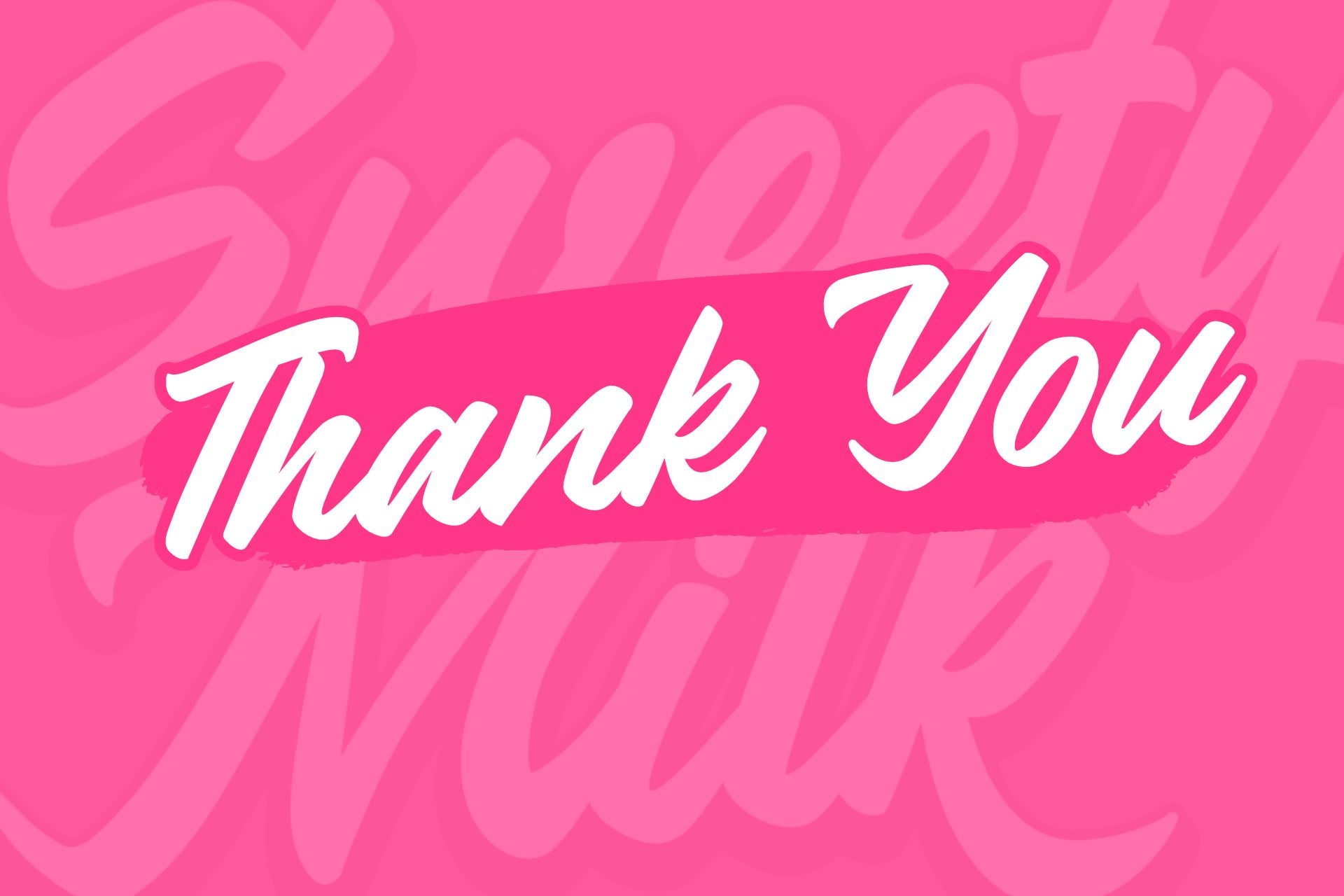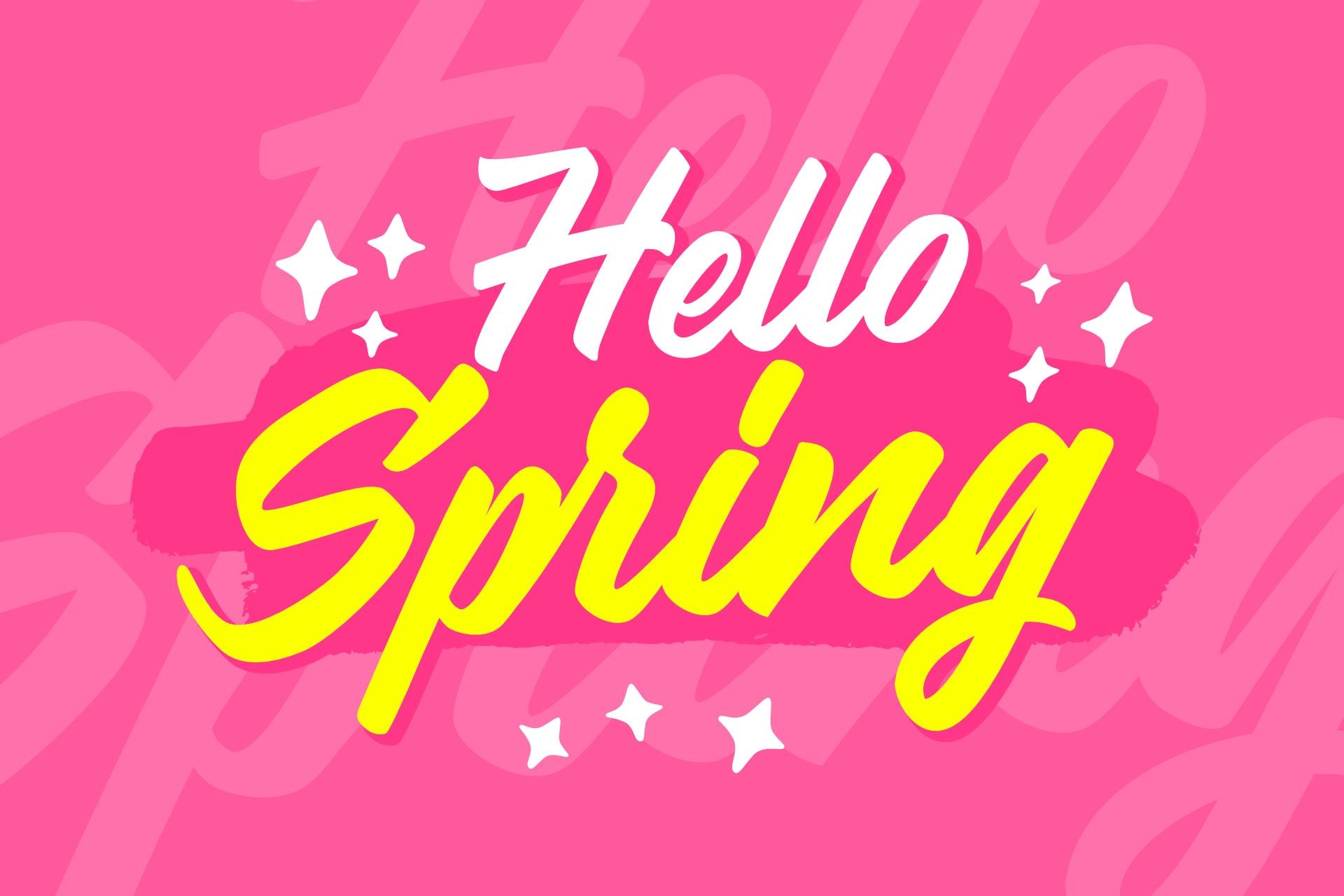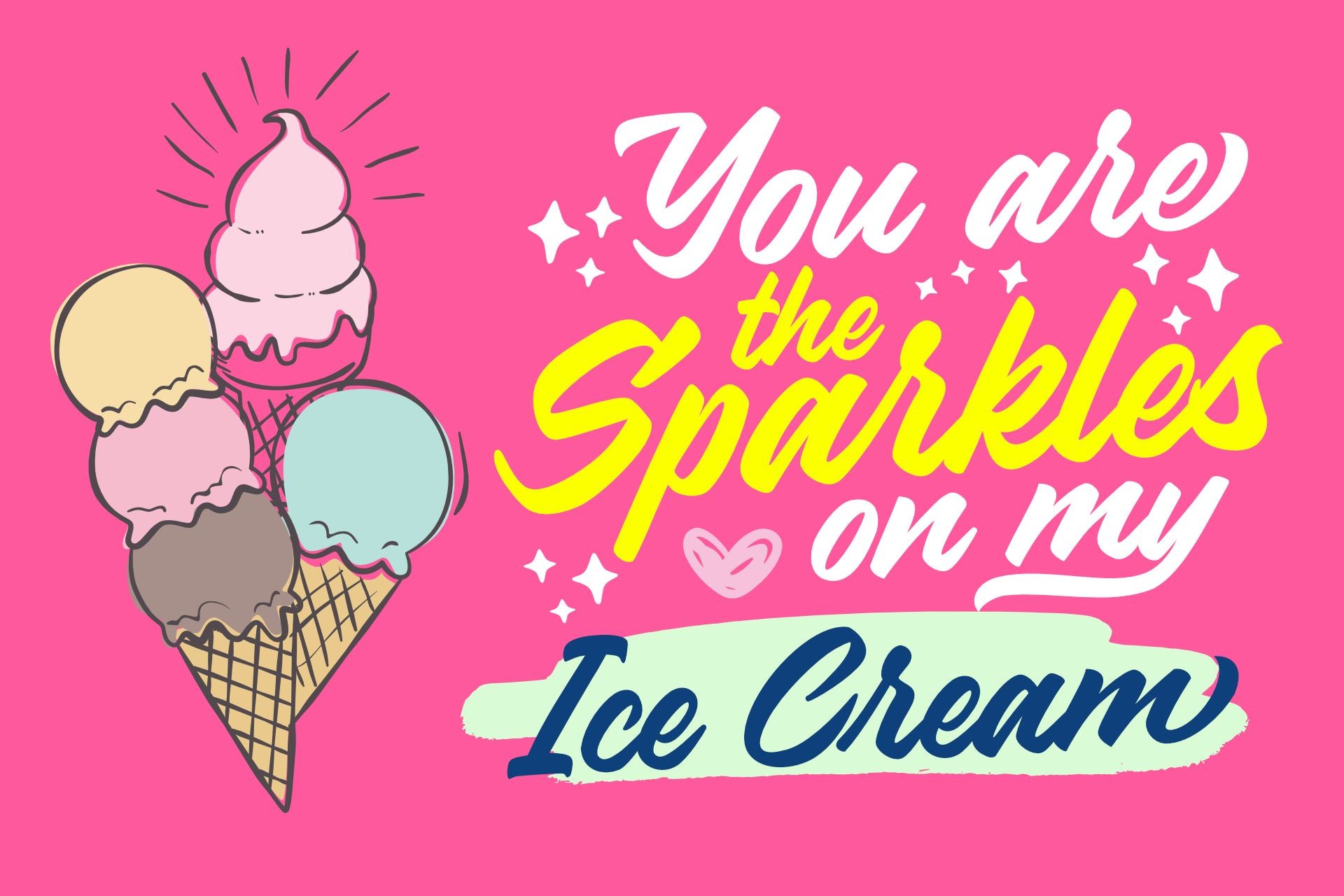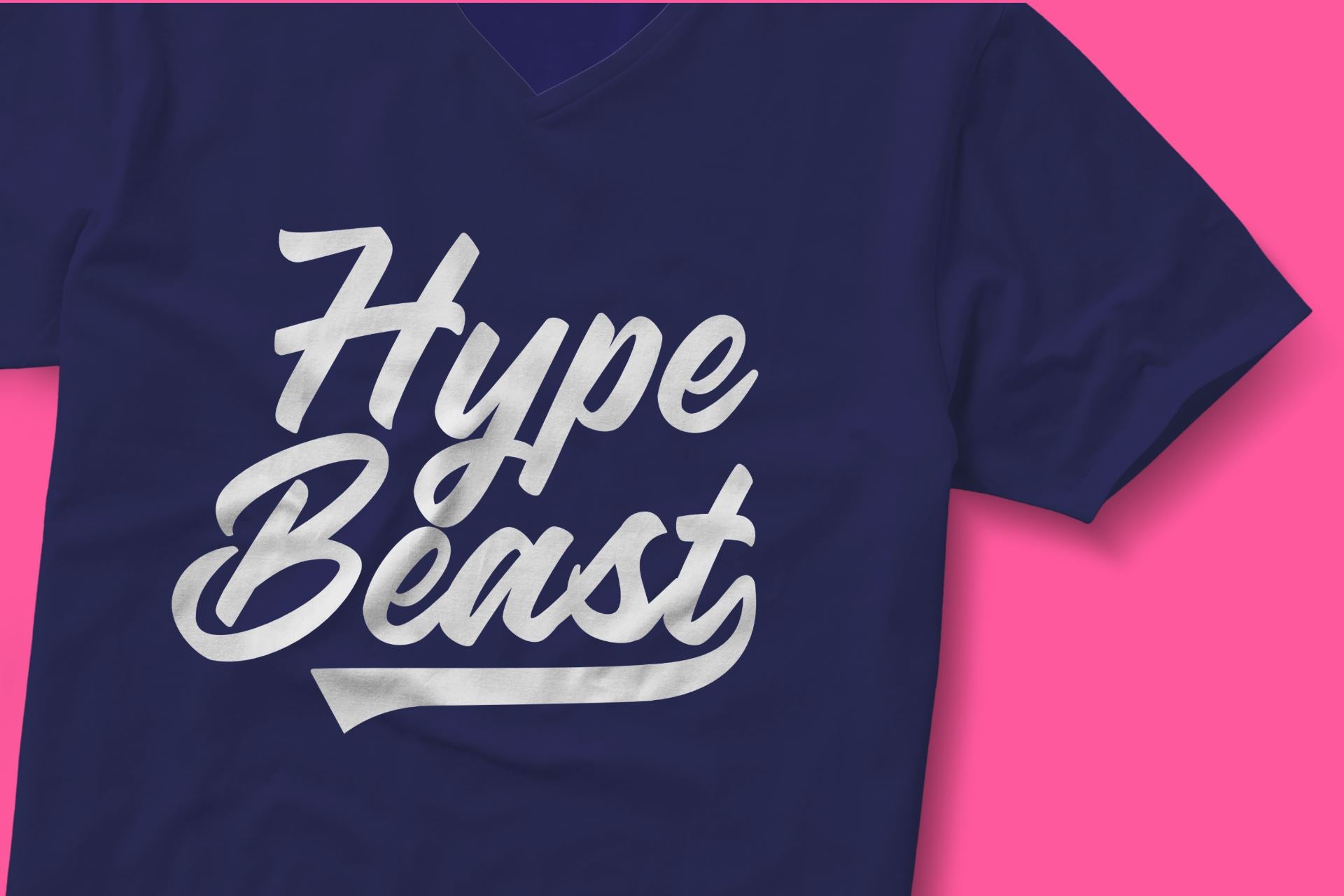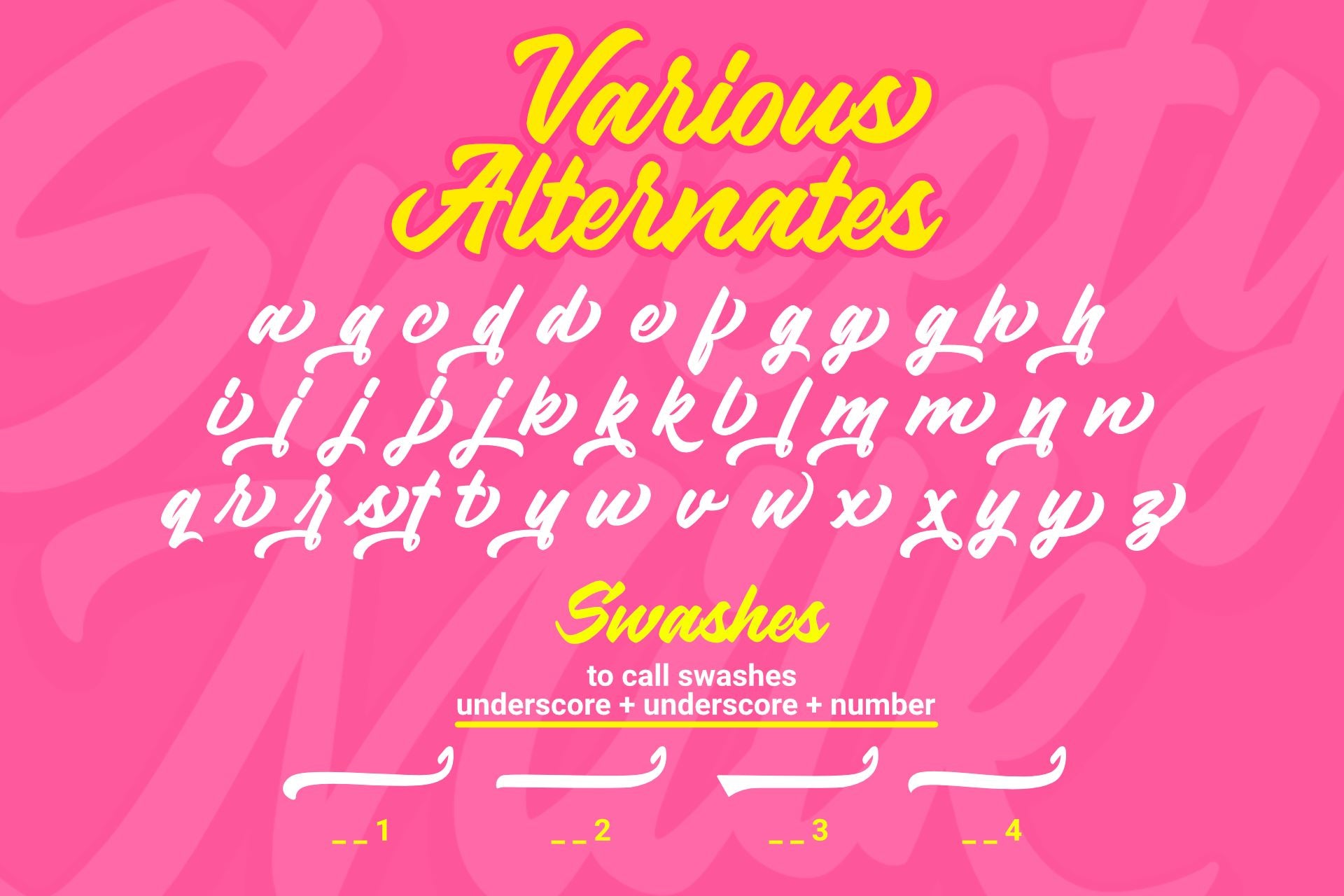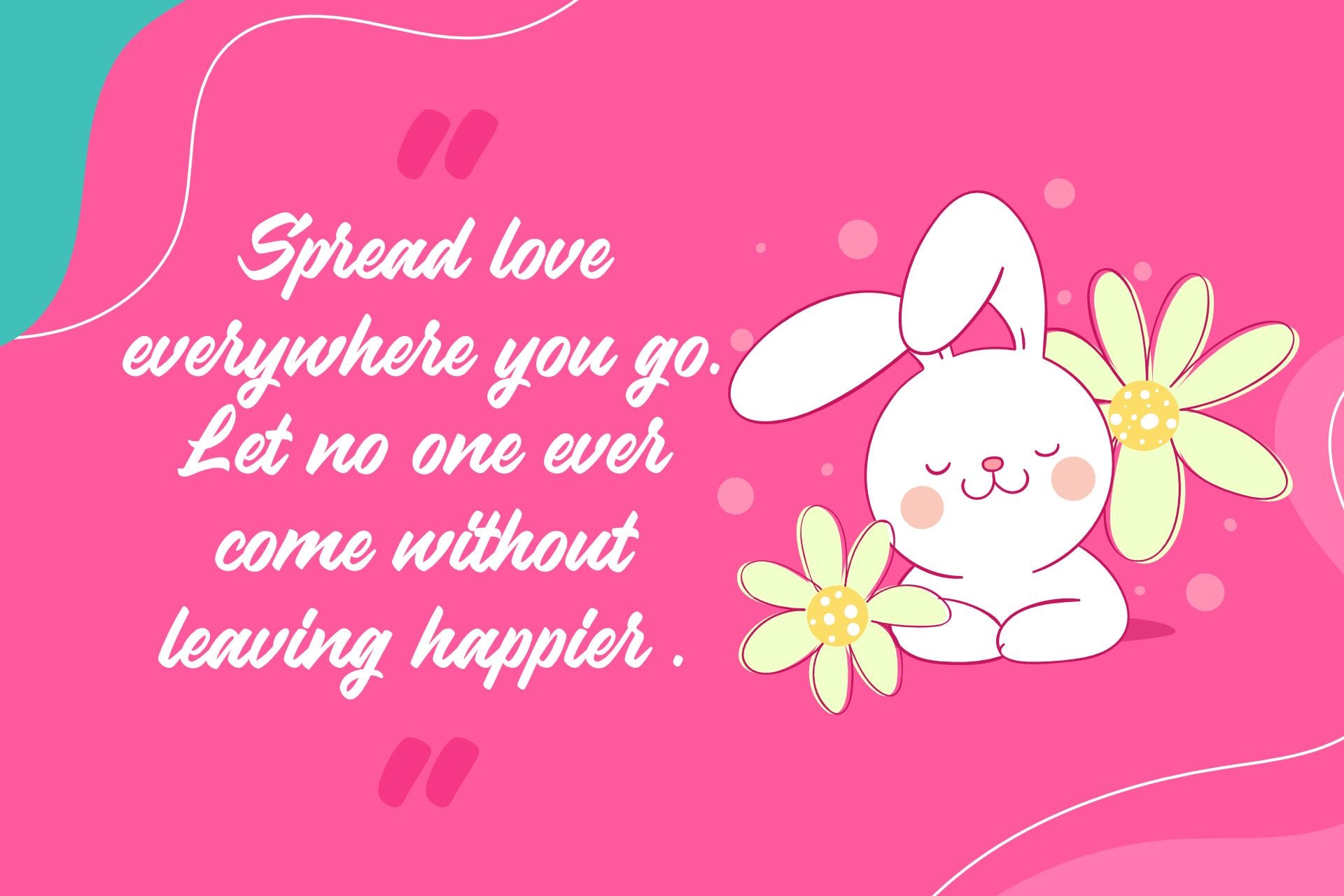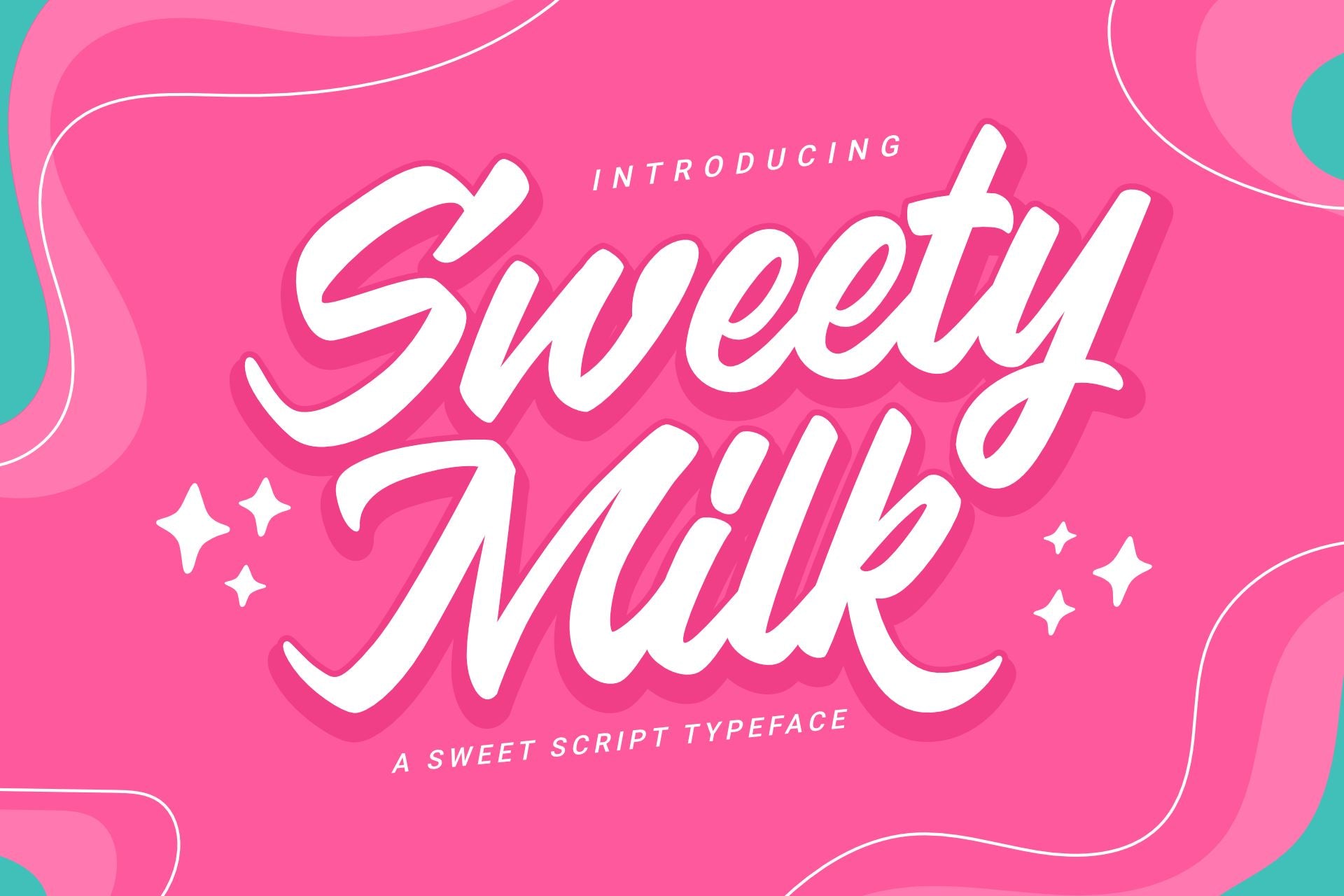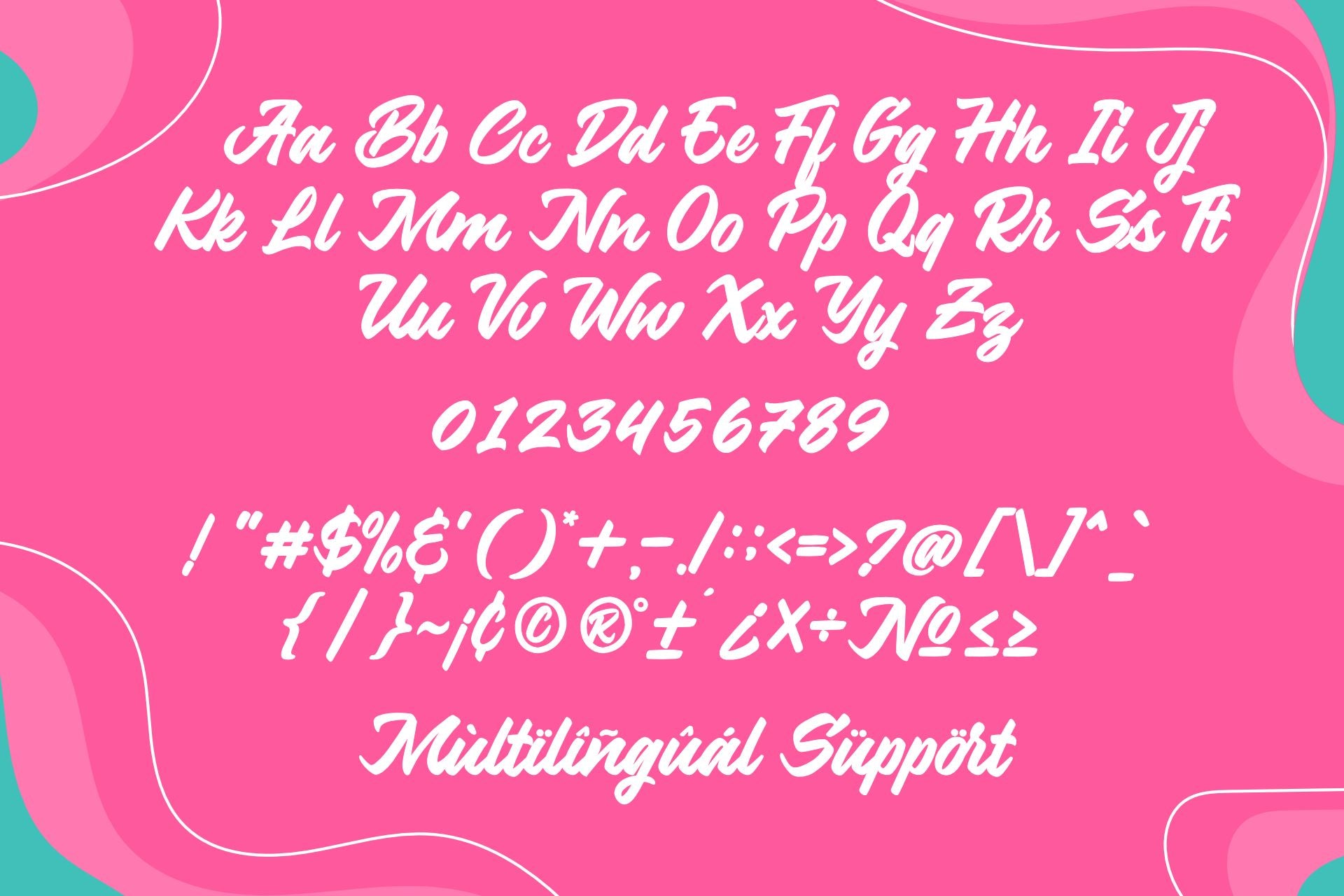
HomeScript FontsSweety Milk Script Fonts Sweety Milk FacebookXPinterestWhatsApp 1 of 8 ... ... ... ... ... ... ... ... About Sweety Milk is in inspiring and flowing handwritten font. It has unique characters that will turn any design project into a true stand out. dd it to your most creative ideas and notice how it makes them come alive! DOWNLOAD NOW People also explored Giorsael Font Natthalie Font Premium Yellowcake Wondery Holly Bomford Font Deluxe Font Mansion Font Rasttelina Font Rachelle Font 309 0 TagsSweety Milk Previous articleBaby liveNext articleButter and Garlic LEAVE A REPLY Cancel reply Comment: Please enter your comment! Name:* Please enter your name here Email:* You have entered an incorrect email address! Please enter your email address here Website: Save my name, email, and website in this browser for the next time I comment. Personal Use Free Nuku Nuku Personal Use Free Read more about this font Gunplay Personal Use Free Read more about this font Happy Rabbit Personal Use Free Read more about this font Nesto Copper 42 Font Personal Use Free Read more about this font BLOG Free vs Paid Fonts: Why Investing in Premium Fonts Is Worth It Free vs Paid Fonts: Why Premium Fonts Are Worth It in 2025 The debate of free vs paid fonts continues in the design world. While... Top 10 Handwritten Fonts That Elevate Your Designs Where to Buy American Fonts Online in 2024 How to Install and Use Fonts on Windows, macOS, and Web Projects